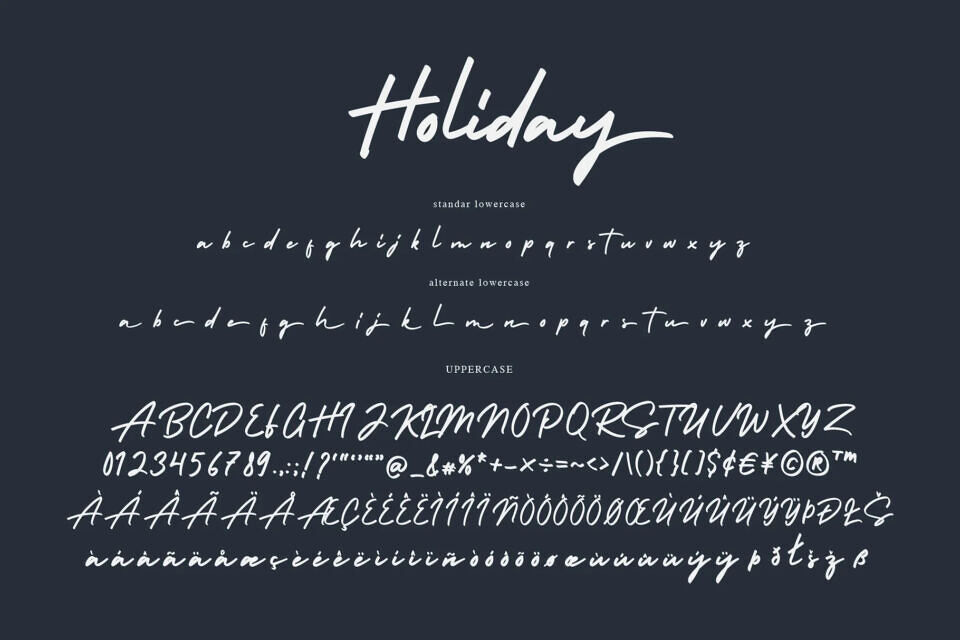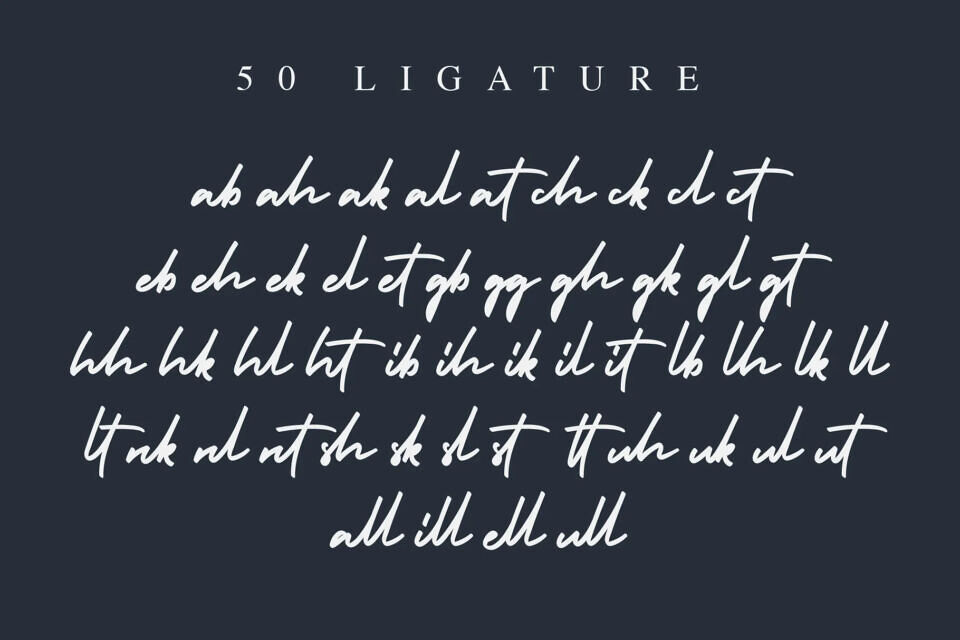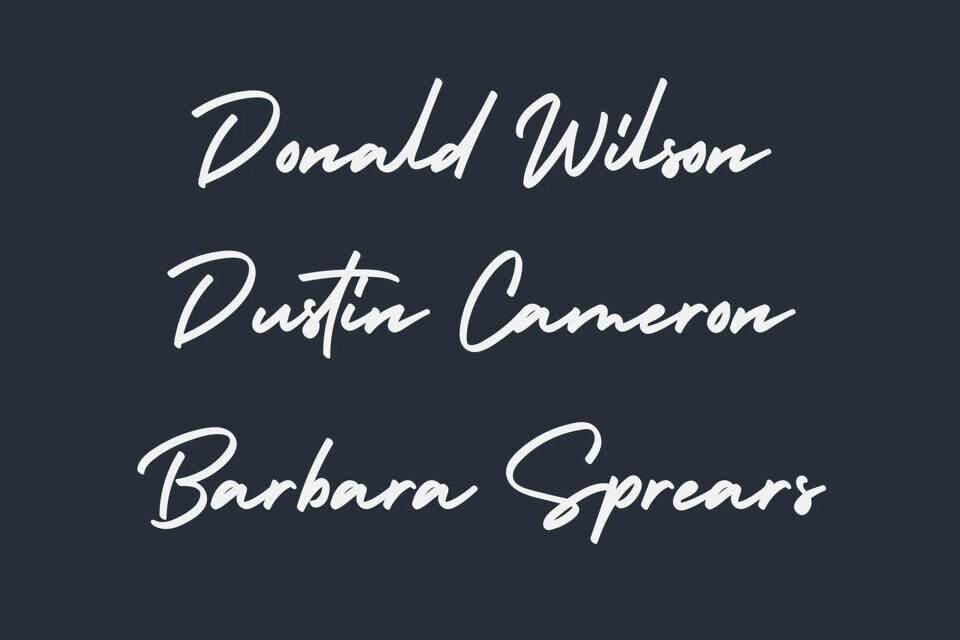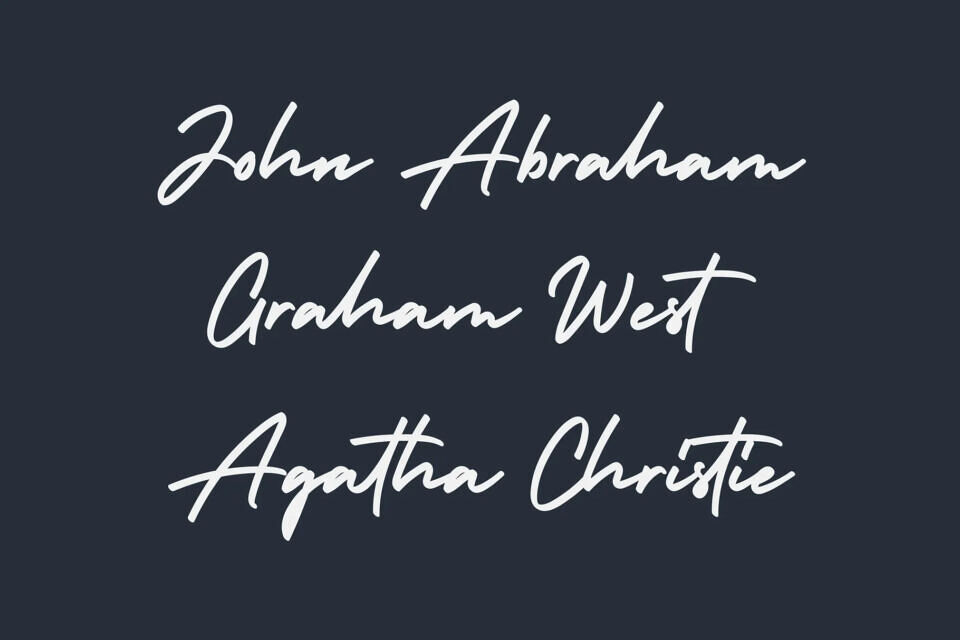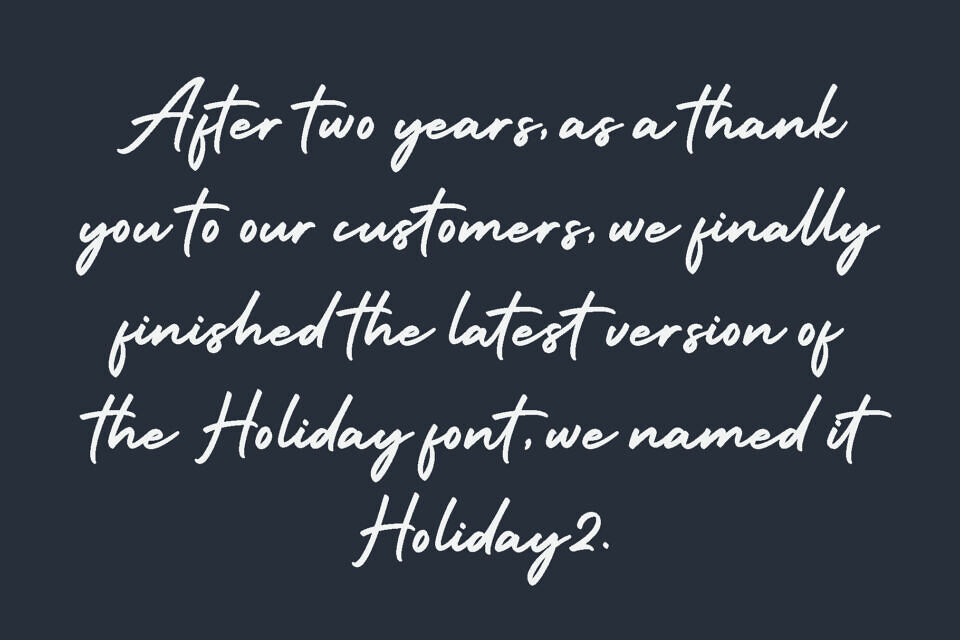
Holiday Font
Holiday is a handwritten script font with a simple and classy style, this font is great for your next creative projects such as watermark on photography, signature or signature logo design, quotes, album cover, business card, and many other design project. From business cards to photo watermarks, Holiday is here to elevate your work to the highest level.